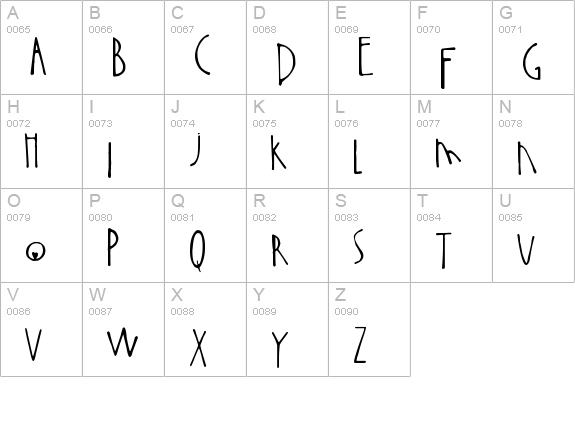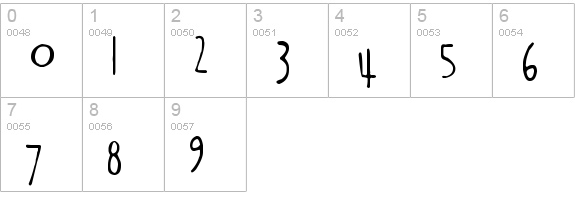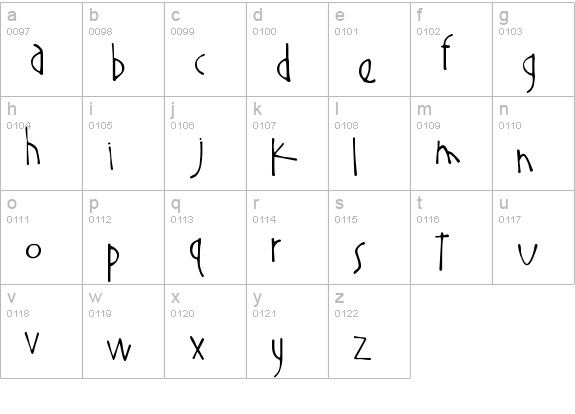
The Buns Font Details
The Buns font is a delightful and whimsical typeface that exudes charm and playfulness. With its rounded edges and slightly irregular shapes, this font brings a sense of warmth and friendliness to any project. Whether you're designing a greeting card, branding materials, or a children's book, The Buns font is sure to bring a smile to your audience's face. What's even better is that The Buns font is available for free download at FontsMarket.com. You can easily access this charming font and incorporate it into your designs without any cost. So why wait? Add a touch of fun and creativity to your projects with The Buns font today!